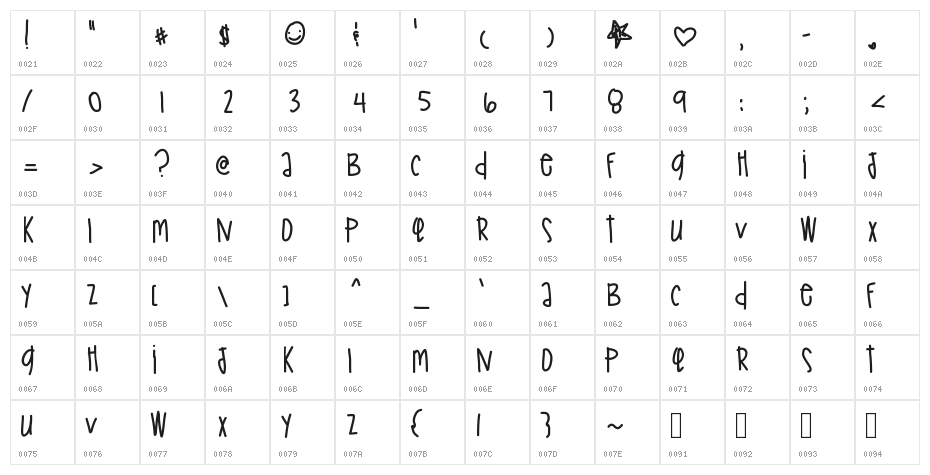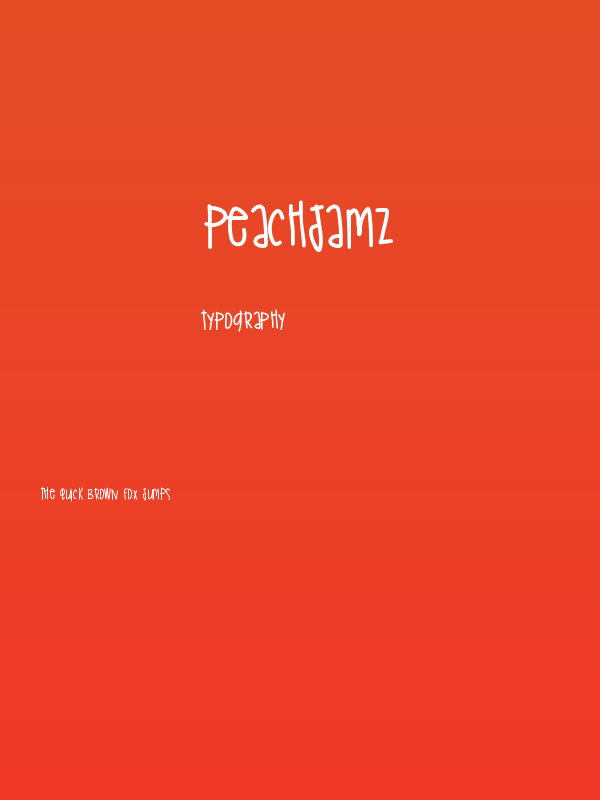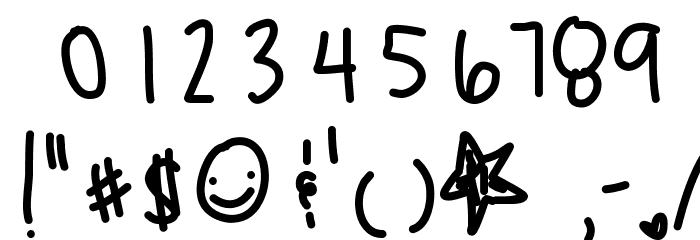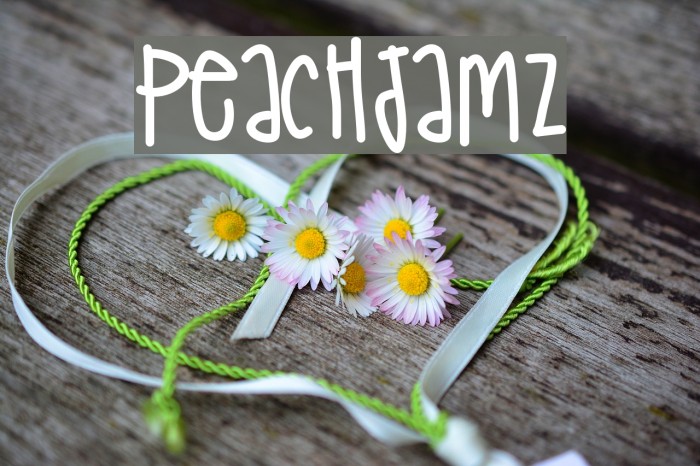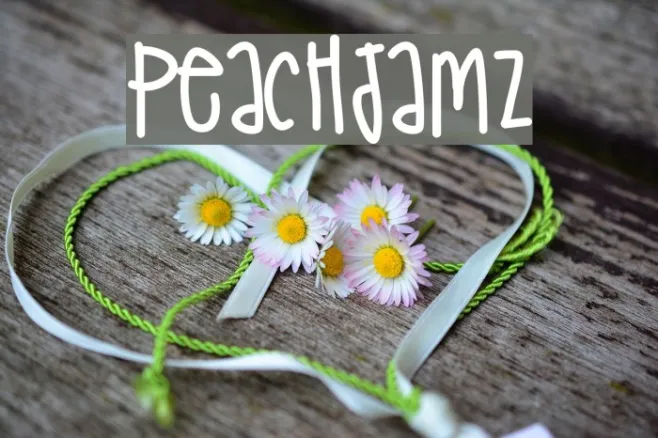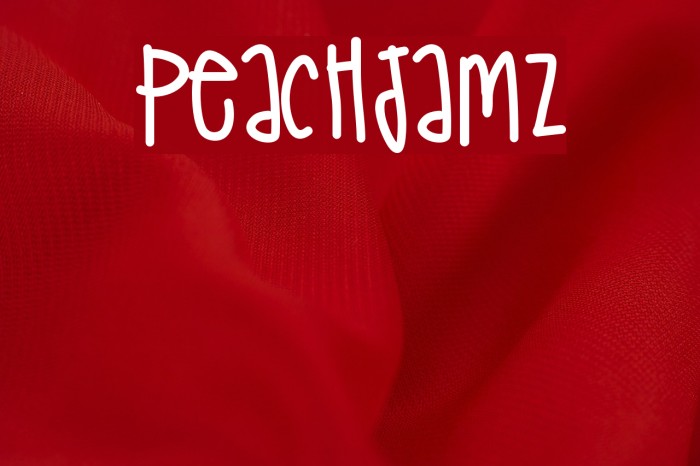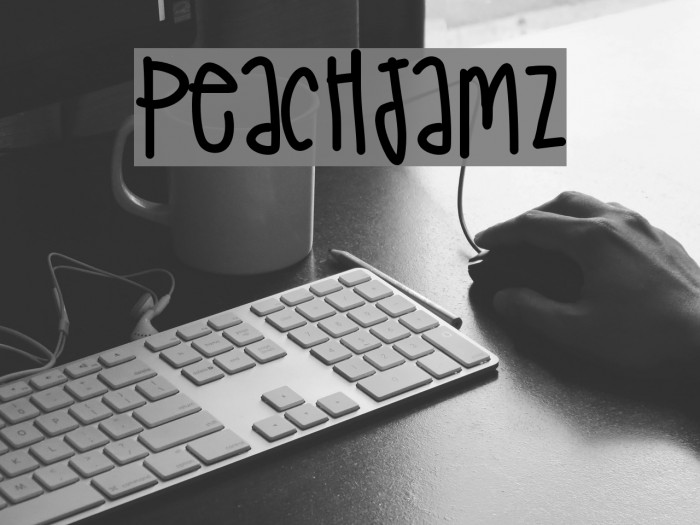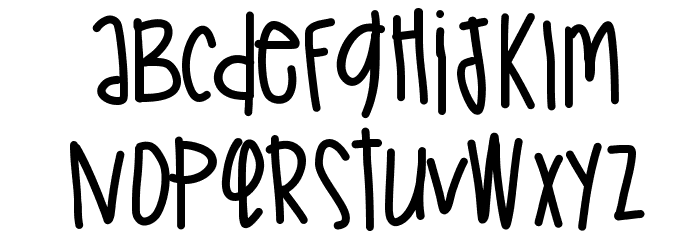
PeachJamz Font
PeachJamz Description
This playful and whimsical font features a handwritten style with a casual, friendly appearance. The letters are slightly irregular, adding a personal touch that feels approachable and fun. The strokes are consistent in width, giving the font a uniform look despite its informal style. The characters are well-spaced, ensuring readability while maintaining a lively and energetic vibe. This font includes a full set of uppercase and lowercase letters, numbers, and a variety of special characters, making it versatile for different design needs.
| Use Case | Logos, Headlines, Informal Text |
| Proposed Projects | Ideal for children's book covers, playful branding, casual invitations, and social media graphics. |